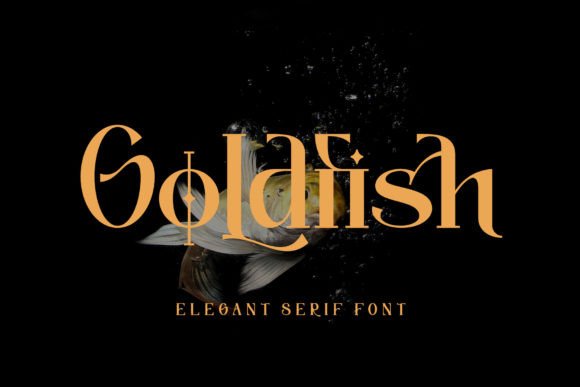
Introducing Goldfish Font, the crown jewel of serif fonts, crafted by the visionary artist thomasaradea. Goldfish is not just a font; it's an artistic expression with a soul. Its classic serif design is a captivating harmony of modern sophistication and timeless elegance. It's a masterpiece in motion, a dance of letters that weaves a spell on your creative canvas.
Goldfish's charm lies in its alluring style, reminiscent of a golden age where art and beauty reigned supreme. Its sharp strokes and graceful curves will add a touch of glamour and luxury to your designs, making your words dance off the page with a radiant glow. Each letter is a masterpiece, etched with precision and finesse, ensuring that your message is conveyed with the utmost style and impact.
Immerse yourself in Goldfish's versatile artistry, where possibilities are endless. Whether you're crafting alluring social media captions, designing captivating invitations, or creating stunning branding materials, Goldfish will effortlessly elevate your words, making them shine brighter than a golden sunrise.
Step into the world of fonts like never before. Goldfish is more than just a font; it's a transformative experience that ignites your creativity and sets your imagination ablaze. Its unique style and modern looks are like a breath of fresh air, a refreshing departure from the mundane and ordinary.
With Goldfish, every project becomes a work of art. Its incredible stylish and glam vibe adds a touch of magic to your designs, making them sparkle like a constellation of stars in the night sky. It's the perfect font for those who dare to be different, who yearn to express themselves with audacity and grace.
Unlike other fonts, Goldfish is PUA encoded, a symbol of its exclusivity and versatility. Access all the glyphs with ease, unlocking a world of creative possibilities and limitless artistic expression. Let your designs soar to new heights, reaching audiences with a message that resonates with style and sophistication.
Goldfish is more than a font; it's a gateway to a world of endless creative possibilities, where your imagination is the only limit. Its captivating charm will inspire you to create designs that captivate, designs that leave an indelible mark on the hearts and minds of your audience. Embrace the allure of Goldfish, and watch your creative dreams take flight.